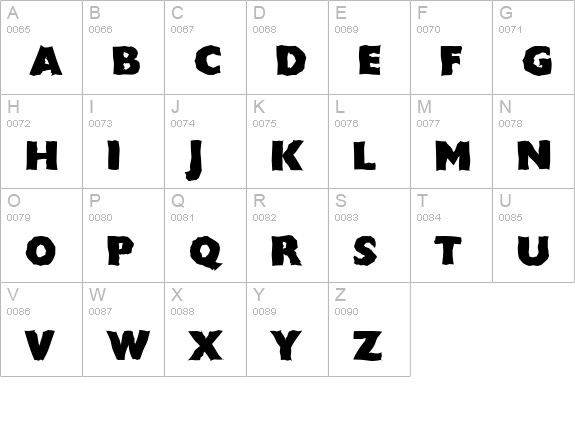
ChantillyRandom-Heavy-Regular Font Details
ChantillyRandom-Heavy-Regular is a heavy, high-impact variant in the ChantillyRandom typeface family \xE2\x80\x94 well suited to high-impact headlines, posters, and display advertising.
ChantillyRandom-Heavy-Regular font is a stunning display typeface that exudes a sense of creativity and uniqueness. Its heavy weight and random letter variations make it perfect for eye-catching headlines, posters, and branding projects. The irregularity in the letterforms adds a dynamic touch to any design, giving it a modern and edgy look. What's even better is that ChantillyRandom-Heavy-Regular font is completely free to download at FontsMarket.com. This means you can add this stylish font to your collection without any cost, making it a valuable resource for your design projects. Don't miss out on the opportunity to enhance your creations with this striking and versatile typeface that will surely make a statement. Download ChantillyRandom-Heavy-Regular font today and unleash your creativity!